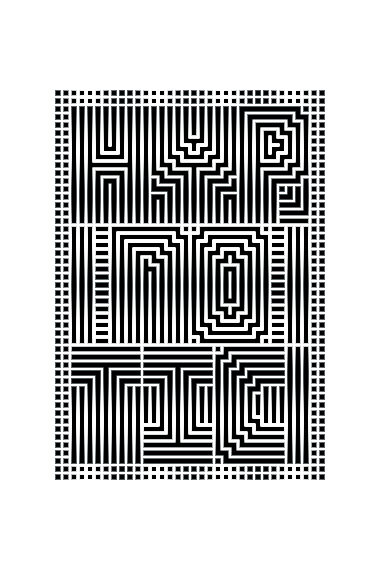
I seriously need to stop playing here.
...but how?
[Blank horizontal lines at - (hyphen), connected blank horizontal lines at _; blank vertical lines at |]
Simply great!
Thanks for filling the gap: I always thought there were not enough optical fonts in the FontStruct gallery (I have a couple unfinished myself, not sure about sharing them...).
This gives me a headache but I love it. It should be the default font used for all government forms.
I LOVE this one!
can you do a heart (on the dagger)?
@Em42: Much obliged. I've been trying to do these kinds of fonts for a while now. The problem is that I myself get confused which brick to put where. This is why I used only one square brick in this one. --Also, please share. I love your fonts.
@afrojet: Thanks, aj. I got a headache doing it too. Don't government forms already use something just as undecipherable?
@guentersen: Thanks, g. Your wish is my command. Two hearts for you: one regular, one guentersen style special (at †).
It looks like op-art...congratulations!
How did this one sneak through without my eagle eye seeing it?! You're full of surprises, friend!
Thalamic... I am speechless... and, uh, slightly dizzy. :-) Great work!!!
Great op-art font! I suck at these, but you're doing great. Great work. 10/10